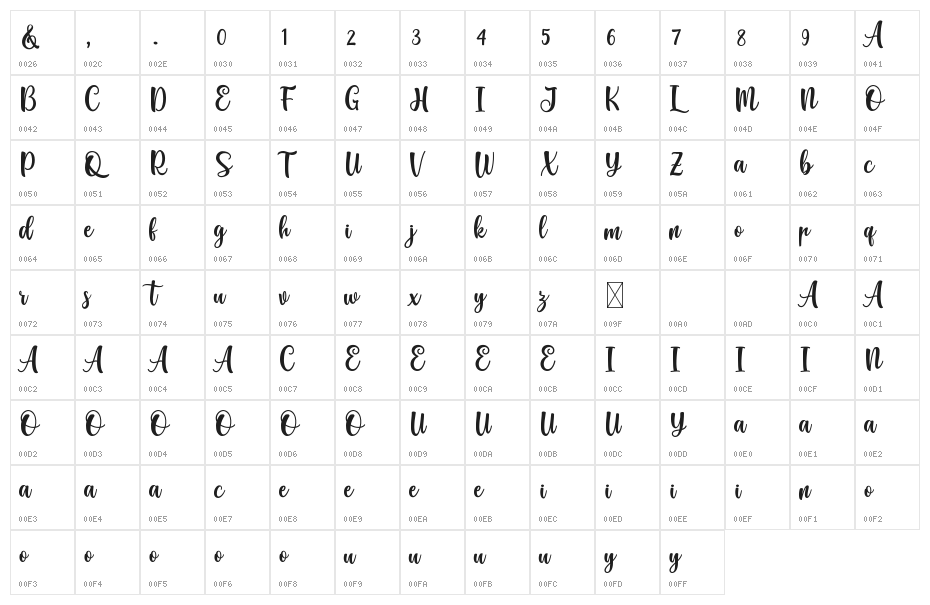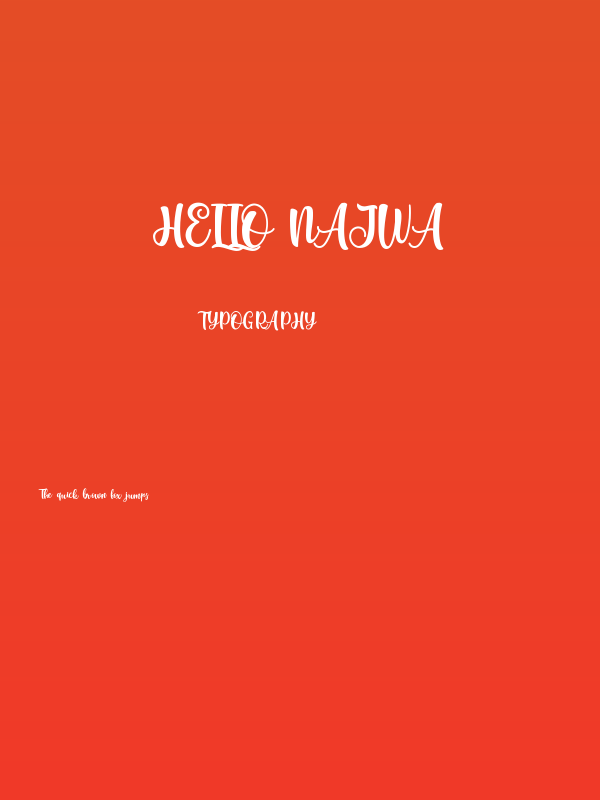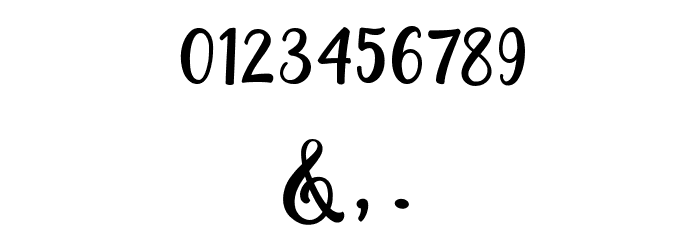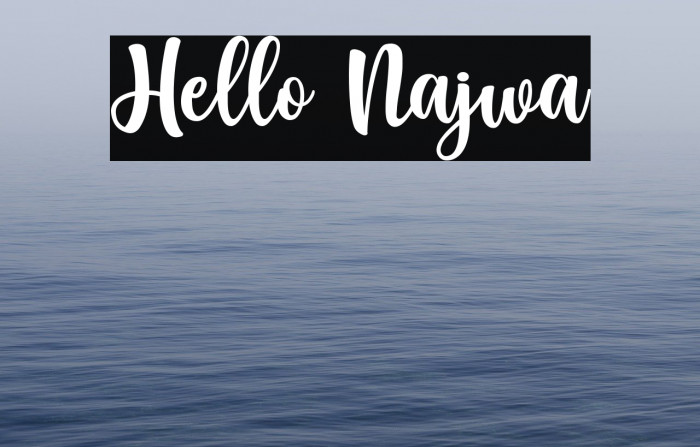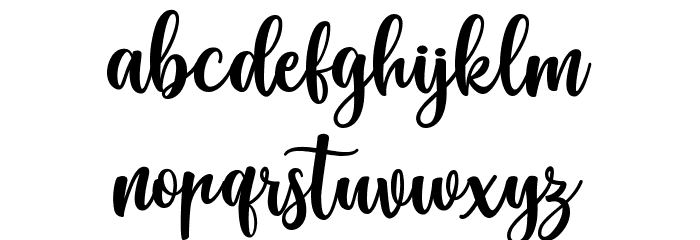
Hello Najwa Font
Hello Najwa Description
This font exhibits a bold and flowing script style, characterized by its elegant and fluid strokes. The uppercase letters are ornate, with sweeping curves and flourishes that give a sense of movement and grace. The lowercase letters maintain a consistent style, with smooth connections between characters, enhancing readability while retaining a decorative flair. The numerals are designed to match the overall aesthetic, featuring similar curves and thickness. Special characters like the ampersand and punctuation marks are crafted with the same attention to detail, ensuring a cohesive look across all glyphs. This font is ideal for projects that require a touch of sophistication and elegance.
| Proposed Projects | Ideal for wedding invitations, branding, greeting cards, and elegant logo designs. |